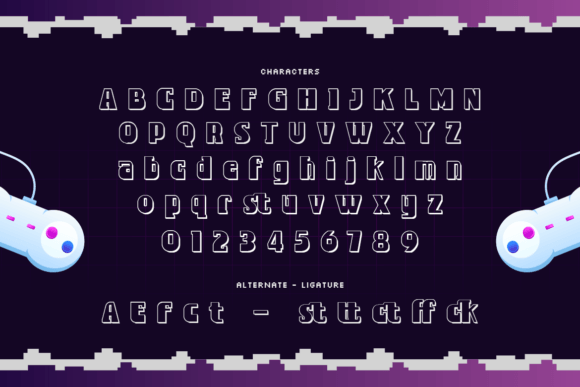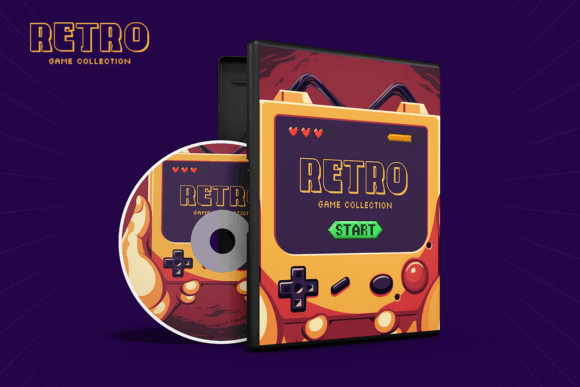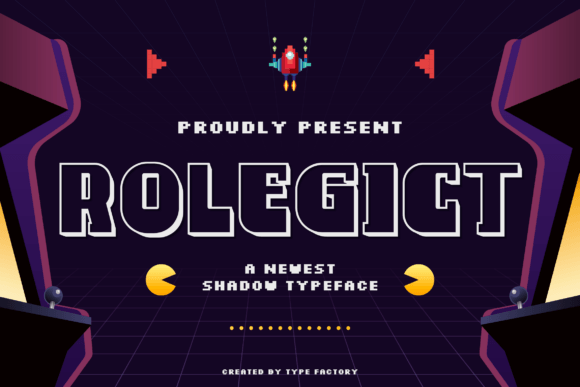
Rolegict Font
Rolegict font. Defining itself with powerful letters and compelling shadow effects, Rolegict emerges as the go-to choice for evocative headlines, invigorating branding initiatives and posters that command attention. The striking interplay of light and shadows in this typeface ingeniously amplifies its dynamism, drawing the eye and boosting legibility. Indulge in the contemporary and trendy aesthetics of Rolegict that carries the power to dramatically enhance your creative pursuits across both print and digital platforms.